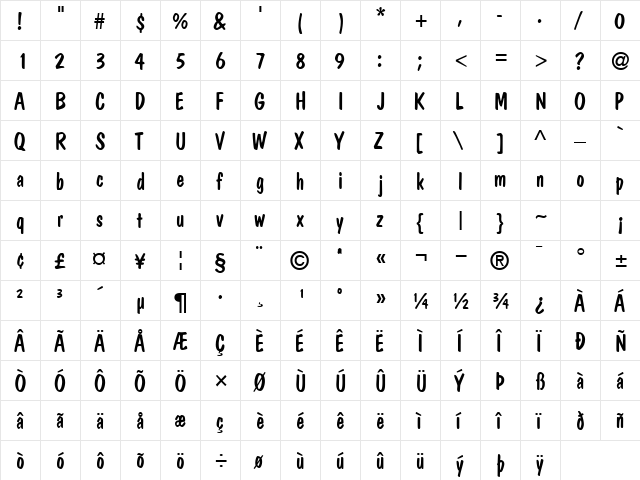
JargonSSK Regular
Design Context for JargonSSK Typeface
JargonSSK takes a measured approach to typography — its balanced proportions and neutral character make it a reliable workhorse for both digital and print work.